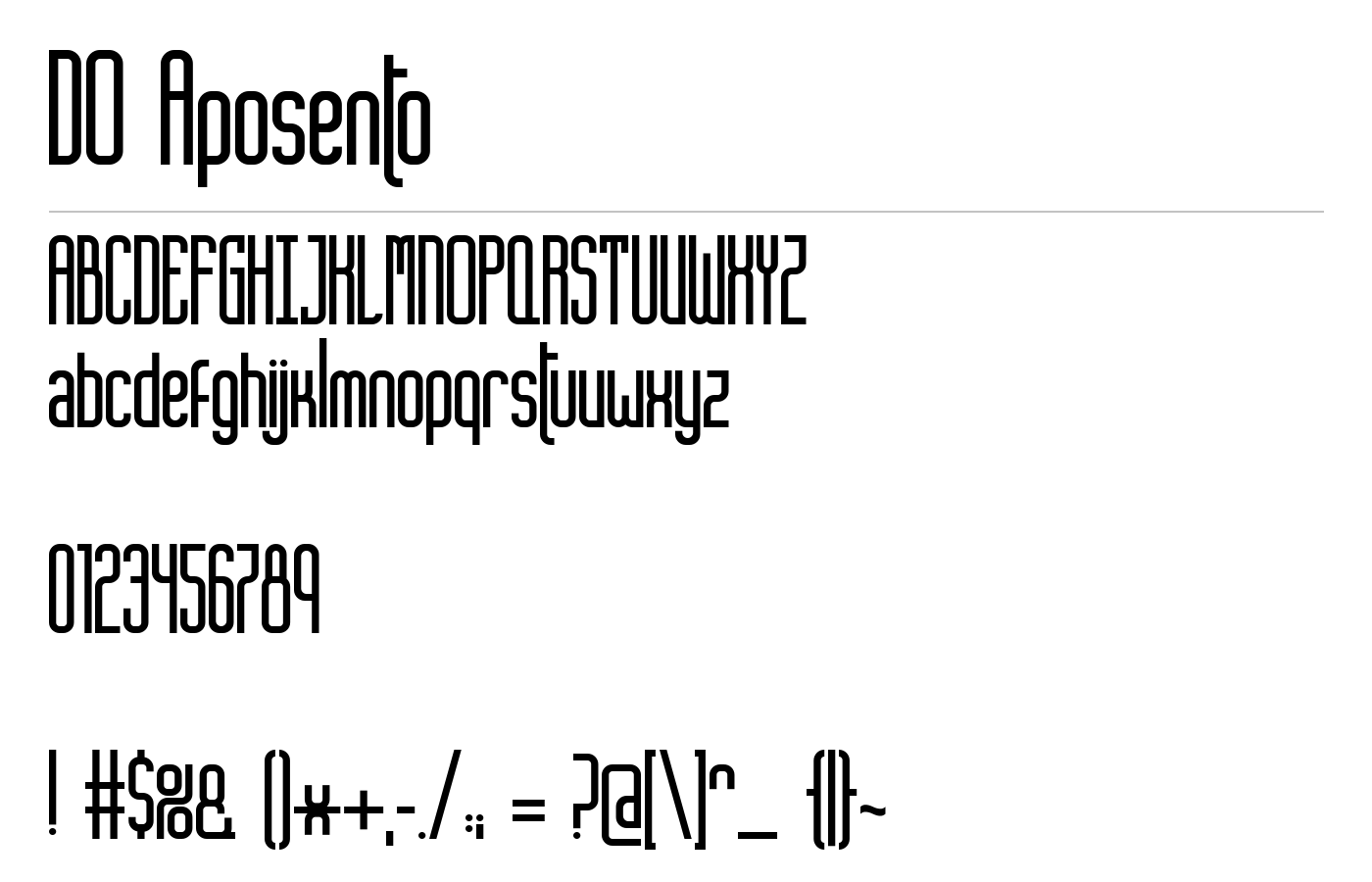
DO Aposento is a narrow, condensed sans serif font with a modern and slightly quirky style, characterized by its tall, slender letterforms and consistent stroke weight. Its unique details, such as the curved tails on letters like "t" and "o," add personality while maintaining readability, making it ideal for creative headlines, logos, and stylish editorial work. This font conveys a contemporary, urban vibe suited for brands seeking a distinctive yet clean and sophisticated look.
DO Aposento Font